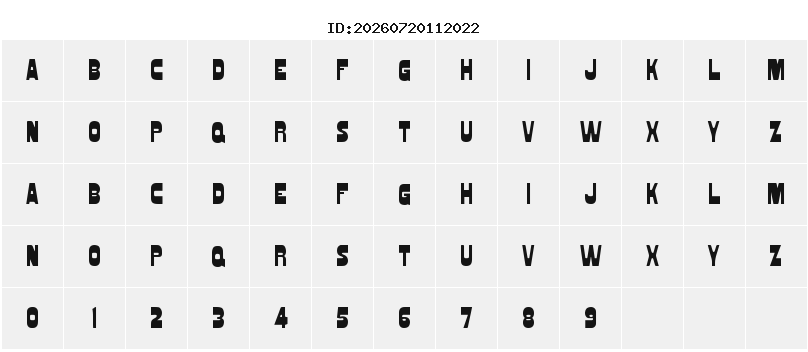
Fungus Preview
• Font Name: Fungus
• Font ID: Fungus Bold:Version 1.00
• Full Font Name: Fungus Bold
• Version: Version 1.00 November 29, 2016, initial release
• PostScript Name: Fungus-Bold
About Fungus.otf
Fungus.otf is a modern, elegant sans-serif font designed for ultimate readability and visual harmony. Perfect for branding, headlines, web design, and print materials.